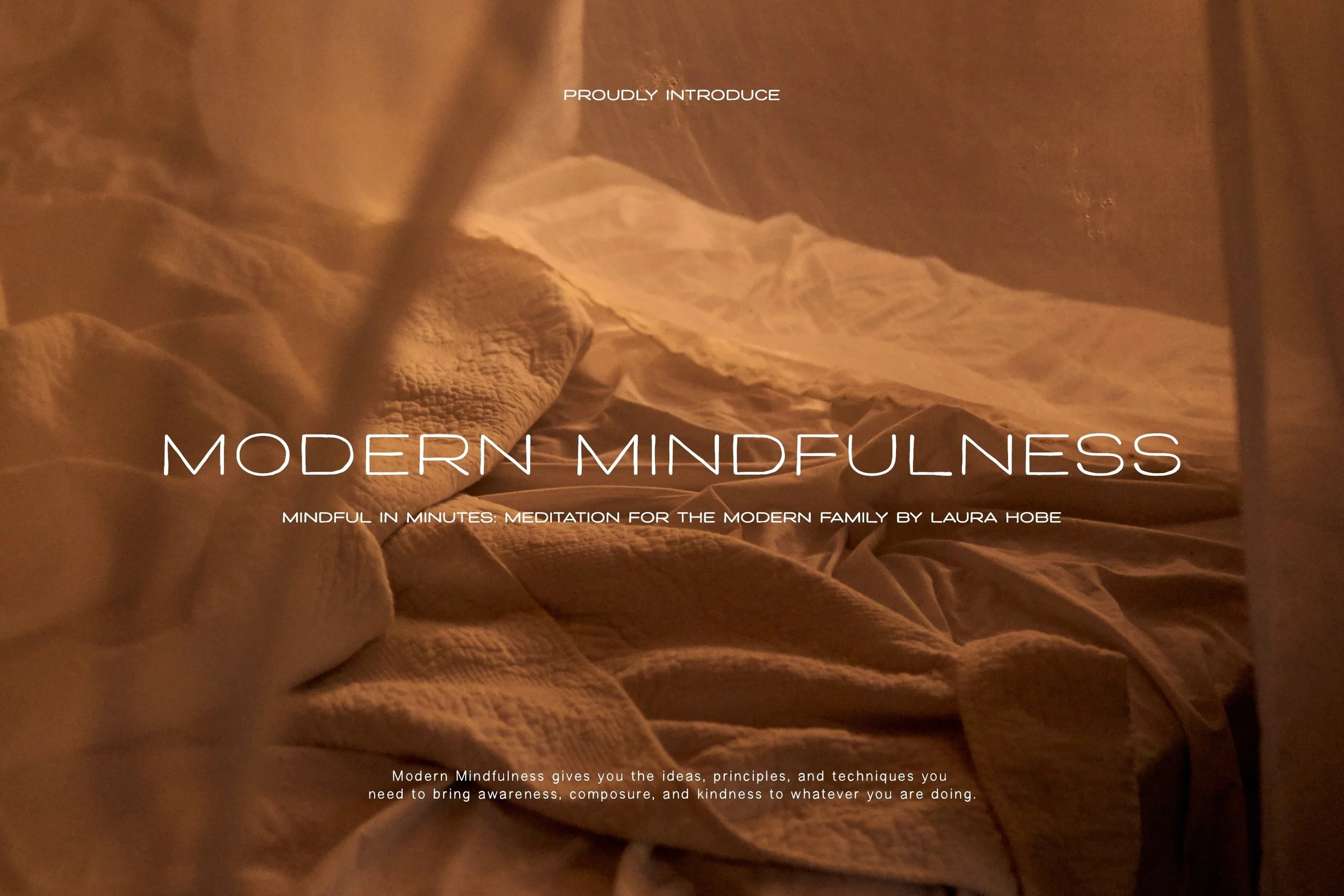
Introducing MAISON - your go-to sans serif font with a handwritten touch. Designed to elevate the aesthetic of your websites and publications, MAISON is simplicity at its best. It captures the informal beauty of handwriting while maintaining the straightforward elegance of sans serif. Ideal for designers looking to create a serene, yet standout presence in their work.
- Contains: ONLY Uppercase letters, numerals, punctuation marks